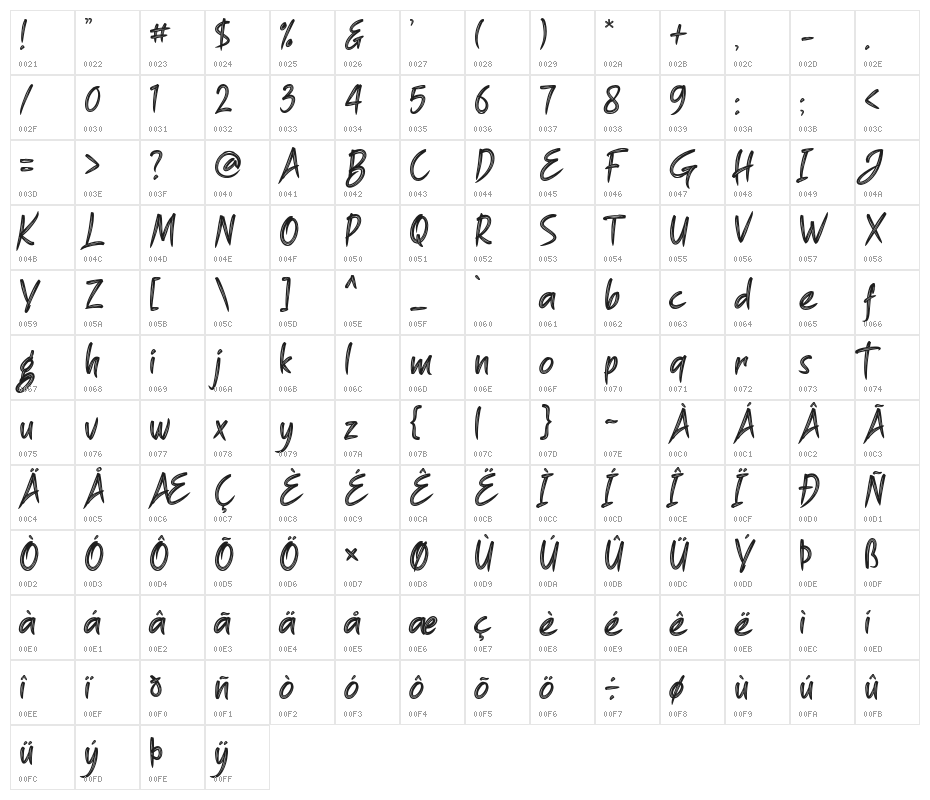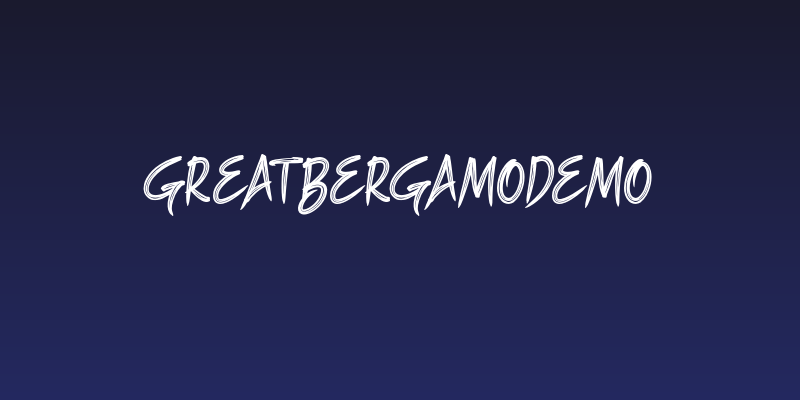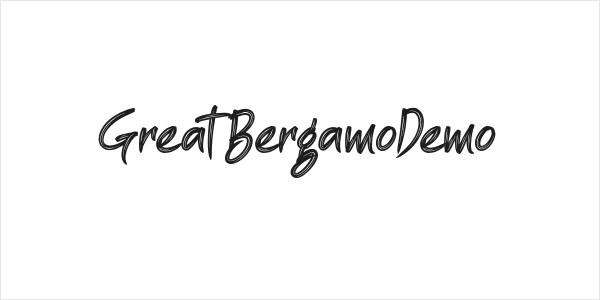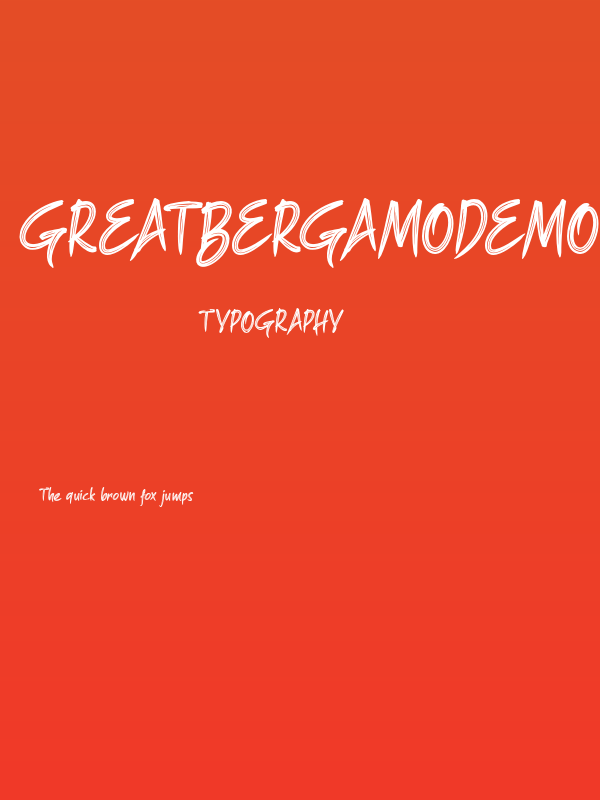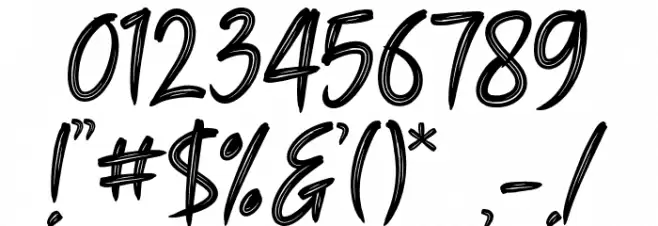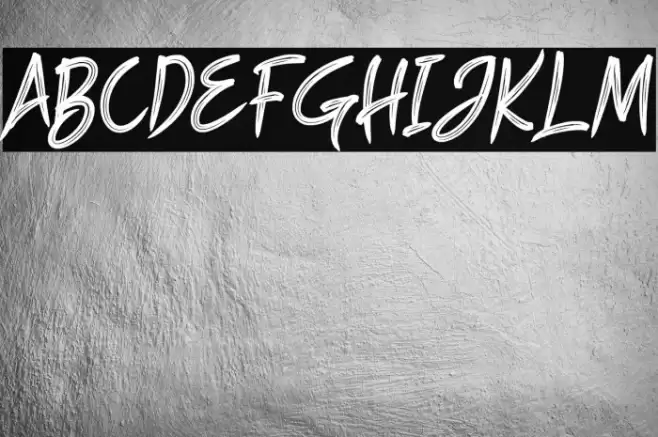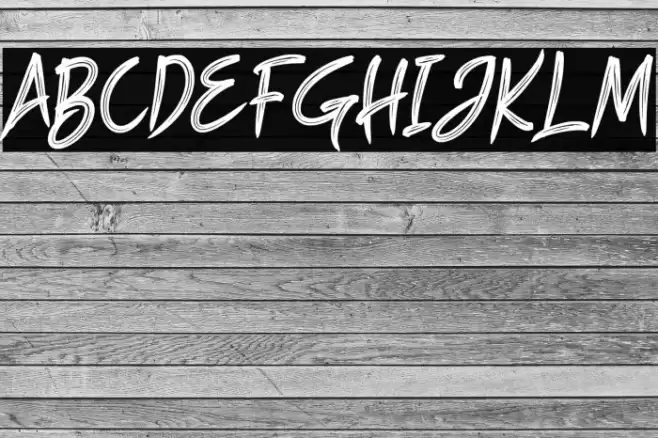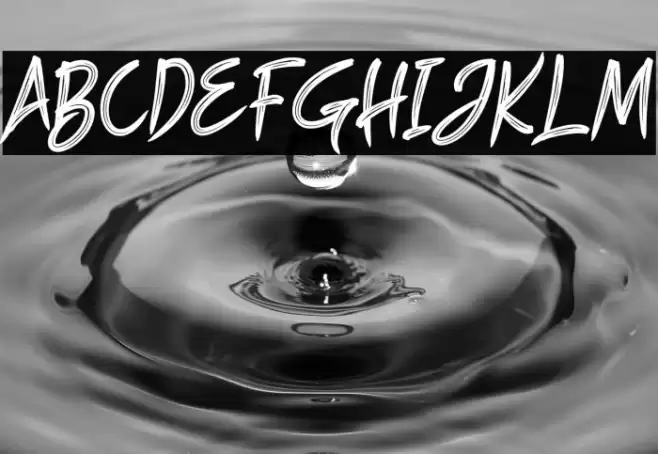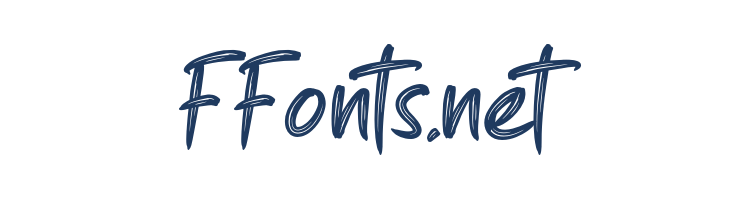
GreatBergamoDemo Font
This font features a dynamic and energetic handwritten style, characterized by its bold and expressive strokes. The letters have a fluid and slightly irregular form, giving it a personal and informal touch. The uppercase and lowercase letters maintain a consistent style, with a noticeable slant that adds to the font's lively appearance. The numerals and special characters are crafted with the same attention to detail, ensuring a cohesive look across all characters. The overall design is playful yet sophisticated, making it suitable for a variety of creative projects.
| Proposed Projects | Ideal for branding, posters, invitations, and social media graphics where a personal touch is desired. |